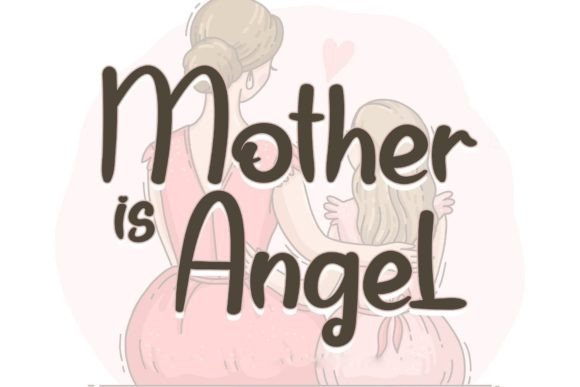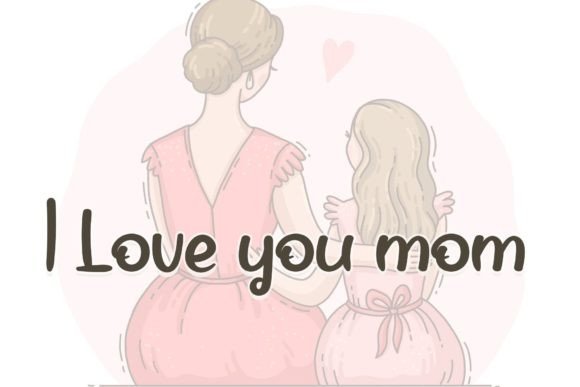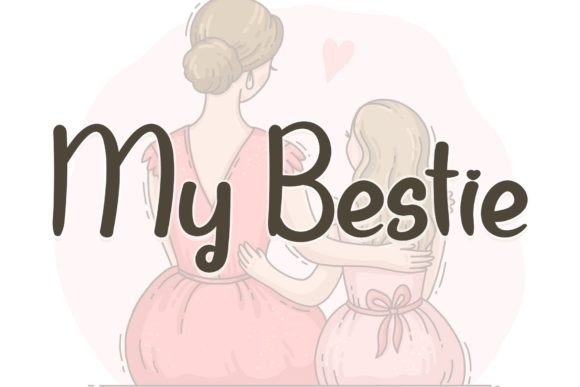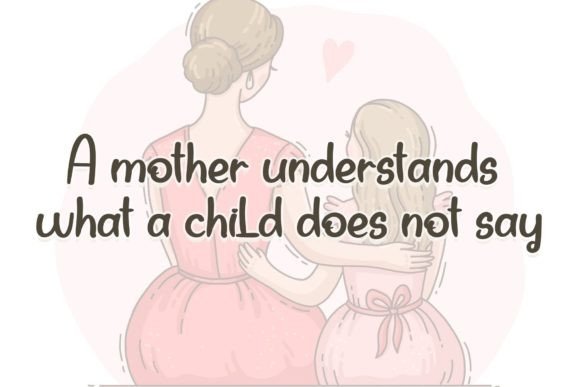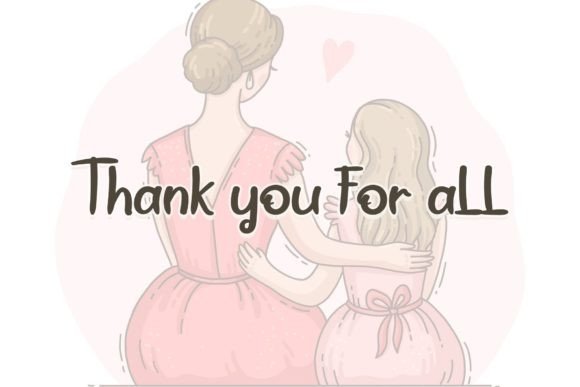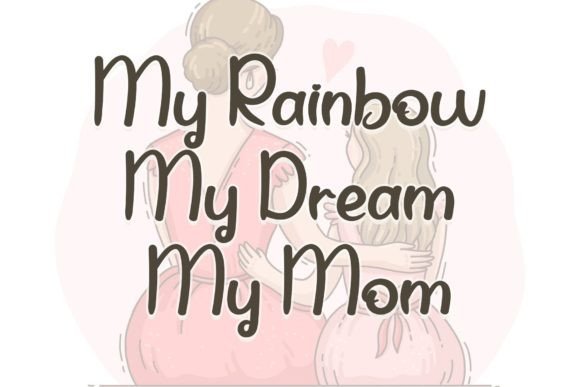
Mother is Angel Font
About Mother is Angel Font
“Mother Is Angel” is an exquisite and charming handwritten font that brings an aura of sweetness and elegance to any design project it graces. With characters that gracefully dance along the baseline, this font is a perfect choice for those who seek a touch of luxury and sophistication in their creative endeavors.
The beauty of “Mother Is Angel” lies in its unique and delicate design. Each letter is meticulously crafted, capturing the essence of hand-drawn elegance. The fluid strokes and graceful curves of the characters evoke a sense of artistry and craftsmanship, making this font a delightful choice for various design applications.
Whether you are working on a wedding invitation, a branding project, a greeting card, or any other creative design, “Mother Is Angel” will instantly elevate your work to a new level of refinement. The font exudes a timeless charm that resonates with both classic and contemporary design styles, making it versatile and suitable for a wide range of projects.
One of the standout features of “Mother Is Angel” is its ability to evoke emotions. The flowing nature of the characters creates a sense of movement and life, adding a dynamic element to your designs. The font’s handwritten quality adds a personal touch, making your audience feel a genuine connection to the content.
In addition to its aesthetic appeal, “Mother Is Angel” is highly readable, ensuring that your messages are conveyed with clarity and style. The carefully balanced proportions of the characters enhance legibility, making it a practical choice for both print and digital applications.
Furthermore, the font’s versatility extends to various languages, making it accessible to a global audience. Whether your audience speaks English, Spanish, French, or any other language, “Mother Is Angel” maintains its elegance and charm, transcending linguistic barriers.
As you incorporate “Mother Is Angel” into your designs, you’ll discover its ability to transform ordinary text into a work of art. The font serves as a canvas for your creativity, allowing you to experiment with different styles, colors, and layouts. Whether you use it for headlines, body text, or decorative elements, “Mother Is Angel” adapts seamlessly to your design vision.
In conclusion, “Mother Is Angel” is not just a font; it’s a design masterpiece that adds a touch of magic to every project. Its exquisite craftsmanship, emotional resonance, readability, and versatility make it a valuable asset for designers, artists, and creatives seeking to make a lasting impression.
Embrace the enchanting allure of “Mother Is Angel” and let your creativity soar to new heights. With this font, your designs will not only be beautiful but also infused with the essence of grace and sophistication. Elevate your creative projects with the timeless charm of “Mother Is Angel” and make a statement that captivates hearts and minds.